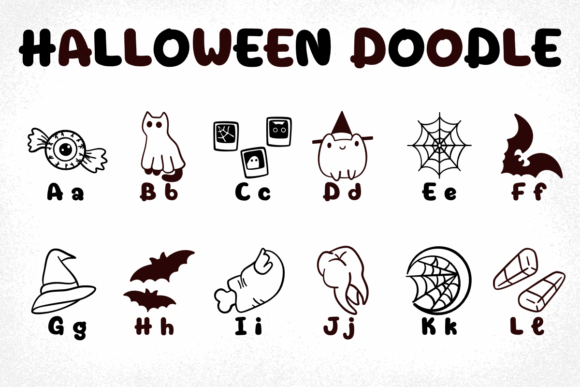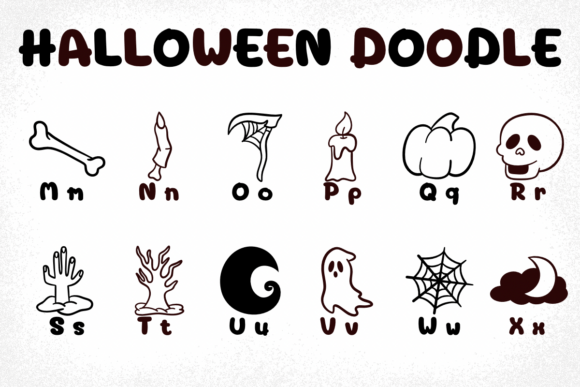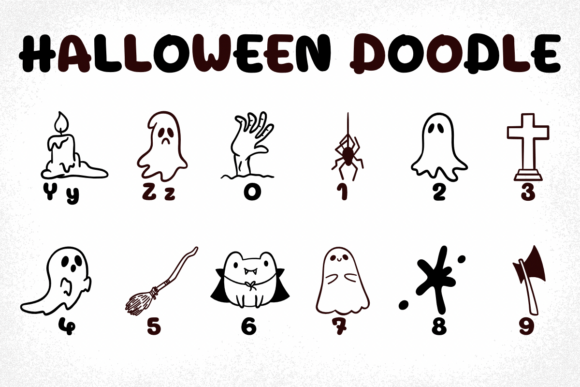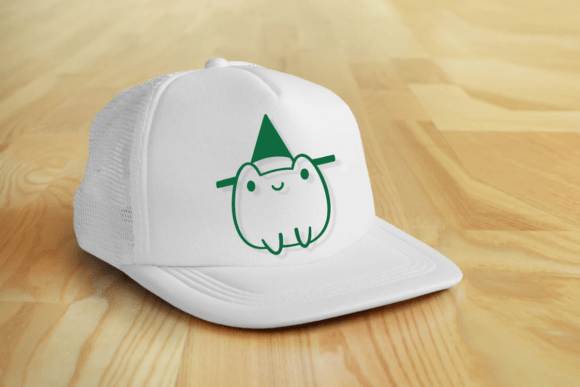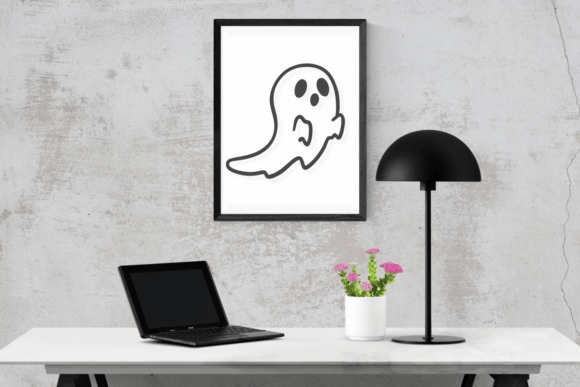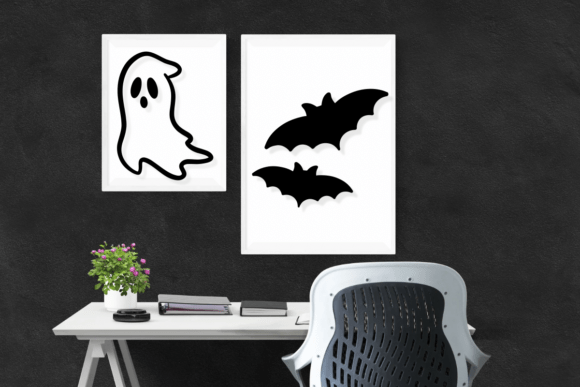
Spooky Vibes and Creative Delights: The Magic of Halloween Doodle Font
I still remember the thrill of rummaging through my grandmother’s attic on a crisp autumn evening, the scent of damp leaves and old books filling my lungs as I searched for the perfect decorations for our annual Halloween party. Among the dusty trinkets and forgotten treasures, I stumbled upon a treasure trove of handmade decorations – ghosts, bats, and spider webs crafted with love and care. Those moments sparked a creative fire within me, and I knew that I wanted to capture that same essence in my designs.
Enter the Halloween Doodle Font, a delightful dingbat font that brings the magic of Halloween to life. Packed with hand-drawn icons, from ghostly apparitions to flickering candles, this font is the perfect addition to any spooky-themed project. Whether you’re crafting party invitations, designing social media posts, or working on a spooky craft, the Halloween Doodle Font is sure to add a touch of whimsy and charm to your creations.
Halloween Doodle Font Key Features
- Font style: A playful, hand-drawn font with a spooky and whimsical feel, perfect for Halloween-themed designs.
- Character set: Includes a wide range of characters, including uppercase and lowercase letters, numbers, and punctuation marks.
- Unique characteristics: Features a mix of bold and delicate lines, giving it a unique and eye-catching appearance.
Halloween Doodle Font Review
The Halloween Doodle Font is a playful, hand-drawn font perfect for adding a spooky touch to your designs. ✨ It’s great for titles, headings, and even body text, especially for Halloween-themed projects or branding.
Here are some of the font’s notable features:
- Fun, doodle-like characters that add a whimsical feel to your design
- Excellent for creating a cohesive look and feel for Halloween-themed projects
- Works well with bold, bright colors to create a festive atmosphere
- Supports a wide range of languages, making it a great choice for international designs
- ⚠️ The font may not be suitable for formal or professional designs, as it has a more casual, playful feel
- ⚠️ Some characters may not be available in all languages, which could limit its use in certain projects
- ⚠️ The font’s hand-drawn style may not be to everyone’s taste, and could be overwhelming in large quantities
Overall, the Halloween Doodle Font is a fun and creative choice for designers looking to add a spooky touch to their projects. While it may not be suitable for every design, it’s a great option for those looking to create a festive and playful atmosphere.
The Halloween Doodle Font is perfect for creating spooky invitations, party decorations, and social media posts. It’s also great for adding a playful touch to your Halloween-themed blog posts, presentations, and reports.